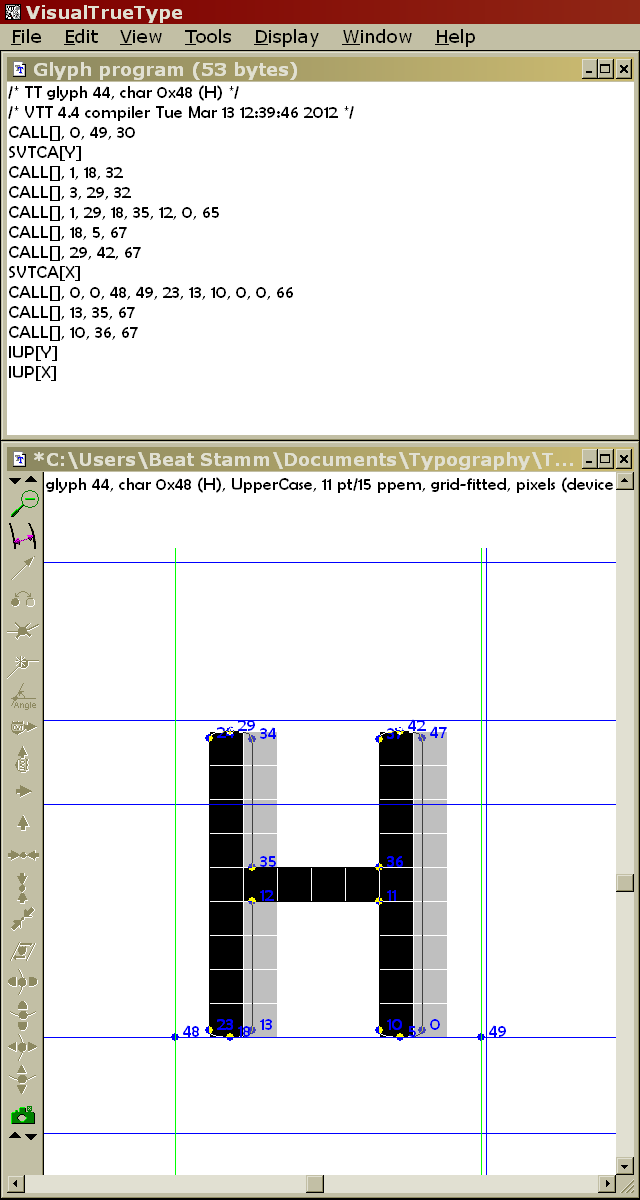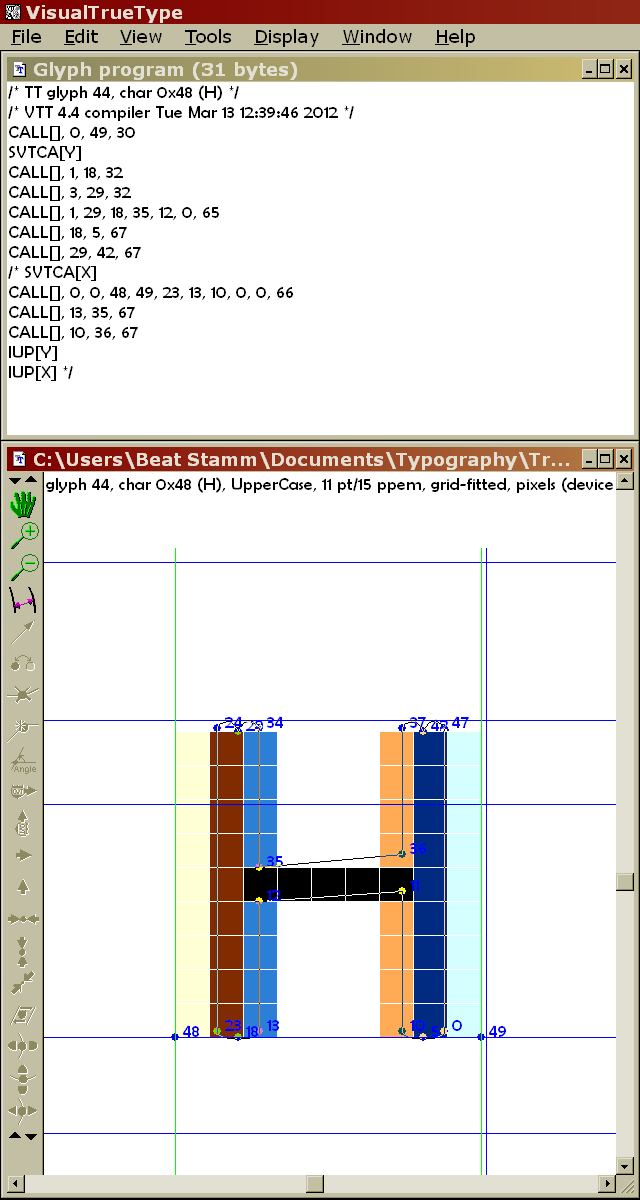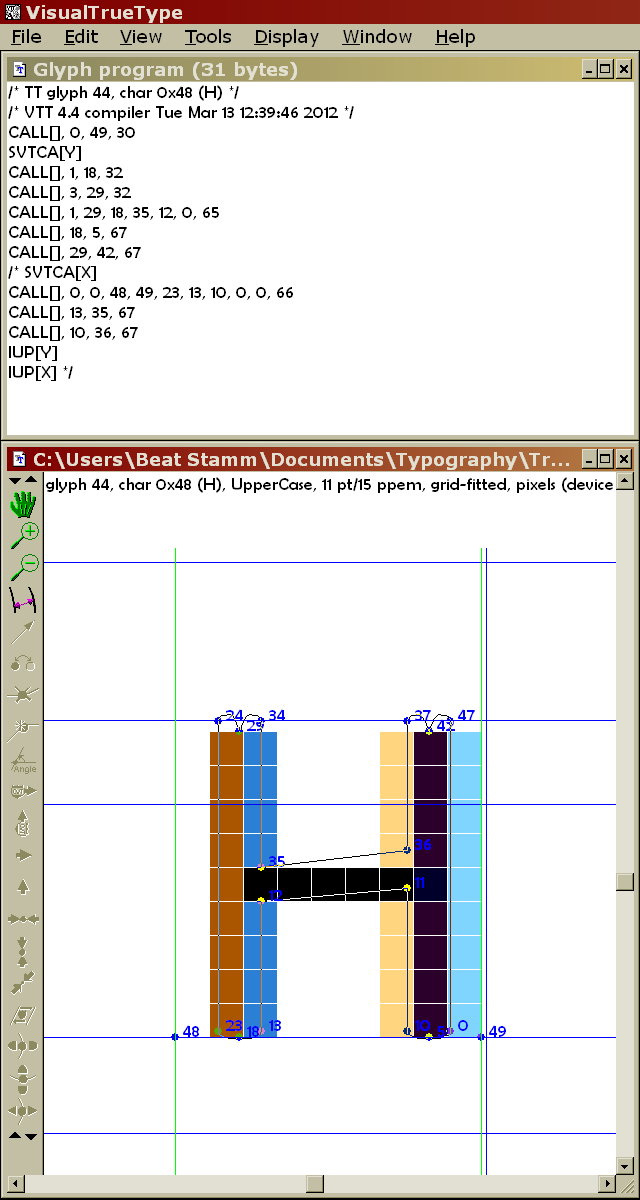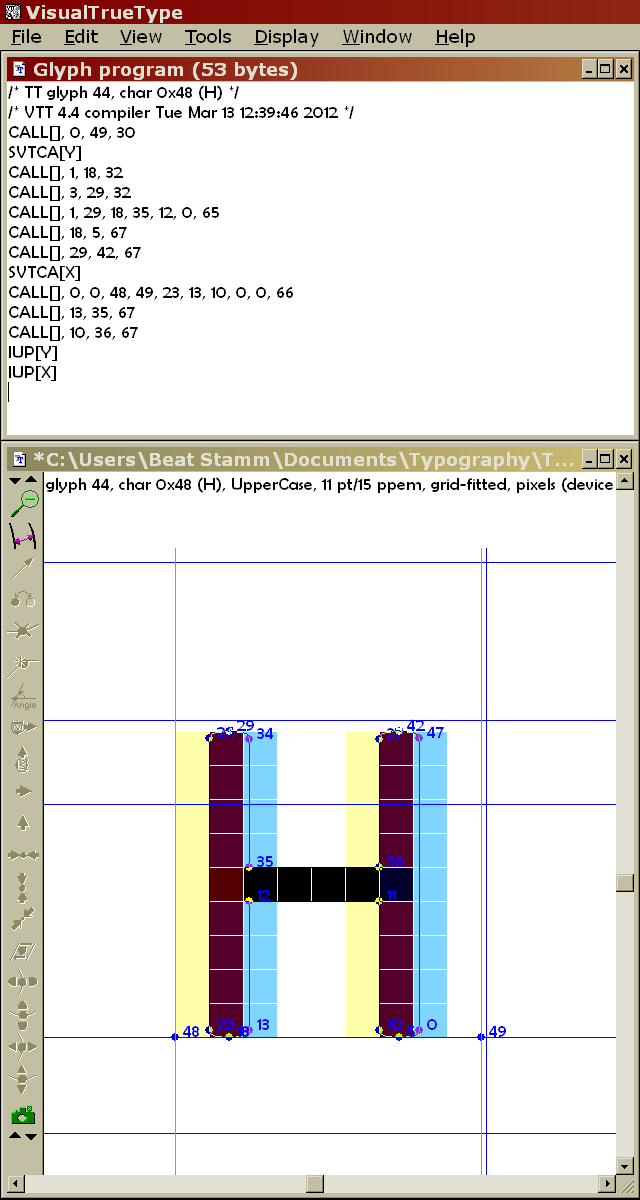
From 2008. They are off, unless you consider rounding to sub pixels as instructions. Turning them on is what's really hard and balloons the data to between 2x and 16x the size of " normal" instructions.
Neither do I seem to understand Berlowese, but rest assured that x-direction “hints” are not turned off in ClearType.
If you are looking for a switch similar to the INSTCTRL[] for re-introducing x-direction deltas (cf end of RTR 4.1.2 Deltas “Galore”), the answer is ‘no’—I didn’t put one into the rasterizer at the time, and I’m unaware of anybody else who might have done so since. If you’re considering programming in native TrueType assembly language, you could use GETINFO[] to identify the rendering method and bracket instructions executed in x-direction by IF[] … EIF[] pairs. However, be aware that while this may solve spacing problems related to RTR 4.2.0 “Compatible” Advance Widths, it may introduce new ones as a result of the advance width still being rounded to integer (“padding” or “truncating” of the right side-bearing, cf RTR 3.3.0, RTR 4.2.1, and this example in the RTR thread).
The link that I pointed to above in this thread, includes testimony of the fact that one can hint the stems to move in x when CT is turned on, but one cannot do it with “links”, or size independent instructions like "mirp" and "mdrp".
Thus! size dependent instructions for CT, depending on how many sizes are “hinted”, make the font file n-times larger than “normal” x-direction hints (for aliased or greyscale rendering), where n is for all practical purposes, the number of sizes one hints.
Most “hinters” I’ve come across don’t seem to understand the concept and power of size-independent instructions, nor CVT cut-ins or dual PVs for that matter, let alone the necessary preconditions for using SDPVTL[R]—testament of which I’ve seen time and again while analyzing major failures of fonts rendered with early implementations of ClearType. “A computer could never do this!” was the mantra-esque “explanation” I was given when I tried to nudge “hinting” towards a ppem agnostic ansatz. “We need these deltas to do it properly!” and “Hinting puts the ‘Clear’ into ‘ClearType!’” While today the latter seems more than a bit ironic to me, at the time this engineer on somebody else’s payroll was happy to comply with the employee review goals and added 256 combinations of ClearType deltas to the GUI of VTT for everybody’s exuberant indulgence in color fringes.
While prototyping an auto-hinter it dawned on me how intensely absent the notion of ppem independence was amongst professional “hinters:”
“Spacing algorithm? Don’t bother with it, most of the time this doesn’t work, anyway.” More deltas!
“Inheritance tree? Well… you could do 3 pixels here and 4 pixels there, but in this case it’s too early to do 2 and 3.” CVT deltas!!
“Composites? Just use fn nn to put the accent on top of the base character. What do you mean, ‘center the umlaut’?” Composite deltas!!!
Deltas are completely useless in an auto-hinter. The auto-hinter doesn’t go “Hm… maybe I should ‘pop’ this pixel here and that pixel there” after it’s done with a character. When you write an auto-hinter, the code has to get it right the first time around, in a ppem-independent way. Hence for the inheritance algorithm I gathered abundant anecdotal evidence until I saw a pattern, while for the composites I revisited the tenets of my PhD thesis and implemented a kludge. As to the spacing algorithm, I compromised it to the prevailing preferences and the anticipation that subsequent use of the font will require linear spacing (WYSIWYG and similar fixed layouts).
The world around me seemed comfortable with the ClearType quirks of MDAP[], MIAP[], MDRP[], MIRP[], and ROUND[], along with a generous palette of deltas, but me and my auto-hinter weren’t. While I can’t tell you how I implemented the auto-hinter, I can give you the gist of what I did for many of the illustrations in the RTR (cf e.g. the table in RTR 6.1.0):
Use SCFS[] instead of MDAP[] or MIAP[]
Use MSIRP[] instead of MDRP[] or MIRP[]
Do my own math instead of ROUND[], including CVT cut-in logic and minimum distance constraint
Use a SCANTYPE[] snippet like this in my prep even though I’m not using a single delta.
This does require some programming in native TrueType assembly language but lets me address a plurality of rendering methods with a single set of function calls, like so for a Calibri UC ‘H:’
What may seem like many parameters is simply a way to switch out spacing algorithms or linking strategies. This permitted me to emulate the “link tree” of your example, with the left edge rounded to grid and the right edge rounded to sample—without “re-hinting” Calibri—simply by changing the respective function (notice that I didn’t use a CVT for the LSB since I don’t know the strategy behind your spacing algorithm). This produces a decent size ramp in B&W with consistent stroke design contrast. Once the vertical stems are heavier than the horizontal crossbars, they stay heavier, with the ratio approximating the original design as closely as the coarse pixels allow.
That same set of functions can implement different rounding “granularities” once it’s rendered in gray-scaling, with progressively smoother transitions between stem and crossbar weights, along with a more gradual introduction of stroke design contrast. The rounding granularity is simply an implied parameter of some of the functions used in the process. Also notice the subtle introduction of the rounded stroke ends by around 30 pt on the middle row, and earlier on the bottom row.
Plain ClearType suffers because it doesn’t anti-alias in y-direction, hence the crossbar weight “jumps” in increments of pixels, but at least it doesn’t appear to have crossbars that are heavier than the stems. Likewise, it cannot render the rounded stroke ends until 127 pt or thereabouts, at which point it makes little sense to use ClearType in the first place. Like in your B&W and gray-scaling examples both stems are left-aligned to pixel boundaries, while the stem weights are rounded to the nearest 1/6 of a pixel, compatible with ClearType’s 6× oversampling rate, and hence pairs of stems yield the exact same color fringes.
Really fascinating! Even if every app a windows user launches has a different rendering, eliminating color from any of it is, I think, reducing the volume of the windows font tragedy.